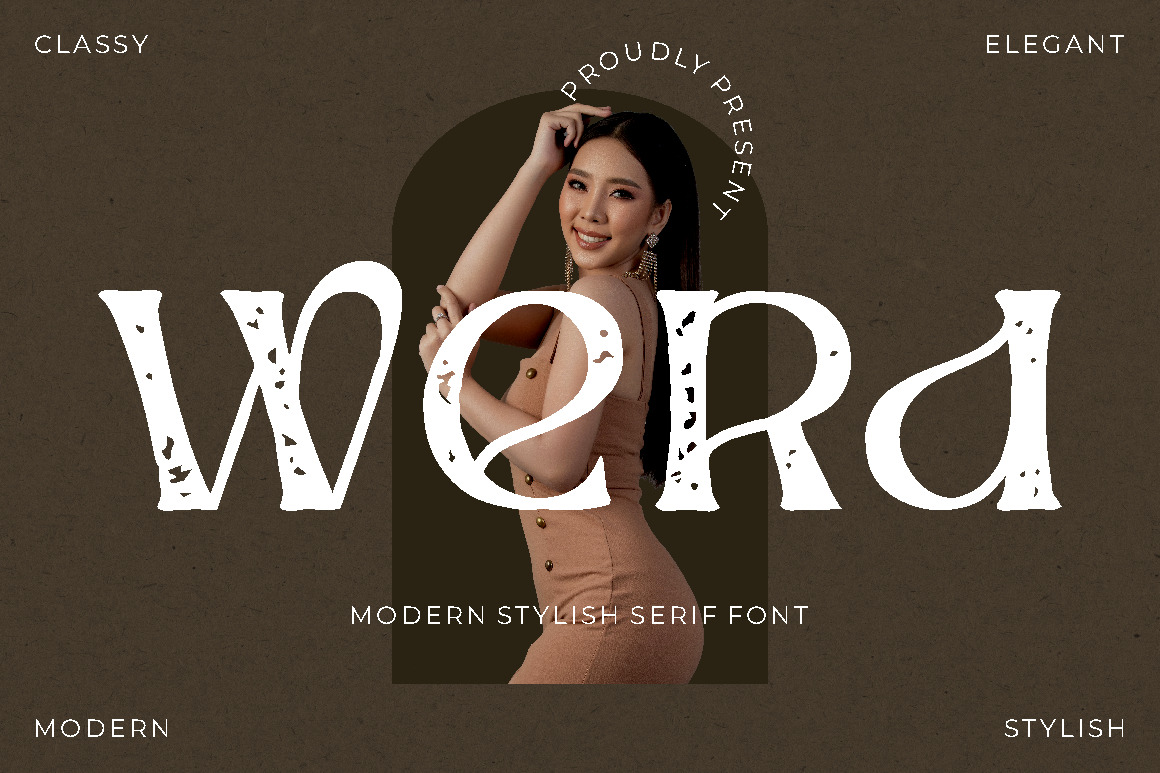
Werd - Modern Stylish Serif Font
Werd - Modern Stylish Serif Font. Introducing the new Werd !! Werd inspired by Elegant and Luxury typography. Werd is a Stylish & Beautiful serif typeface. Werd Font is a very versatile font. you can use this font to various design
Werd is perfect for a professional touch which makes it to form unique & elegant typography designs. Werd is perfect for headings, flyer, greeting cards, product packaging, book cover, printed quotes, logotype, apparel design, album covers, etc.